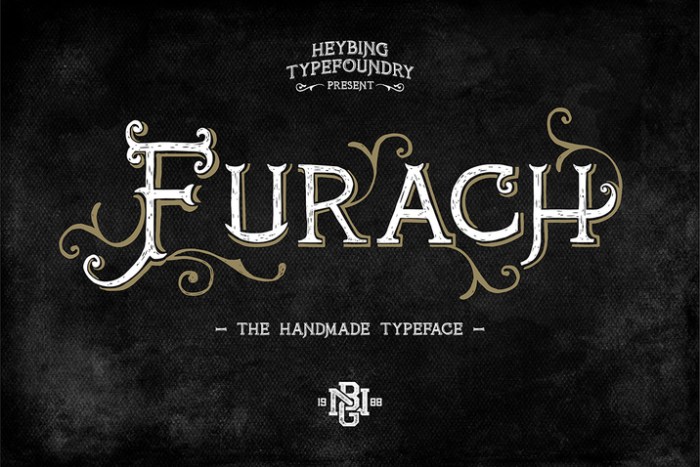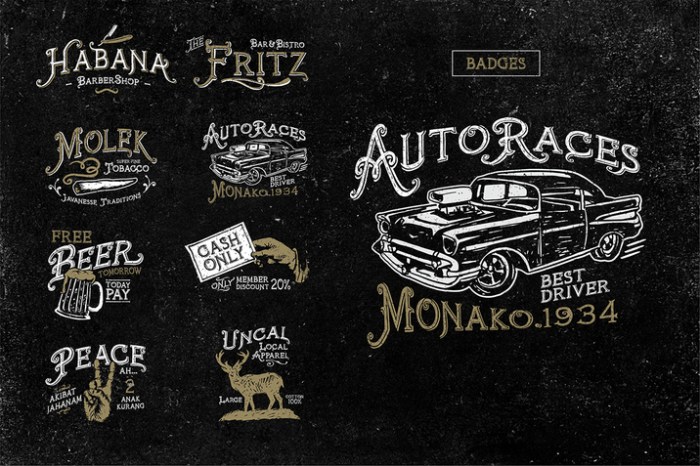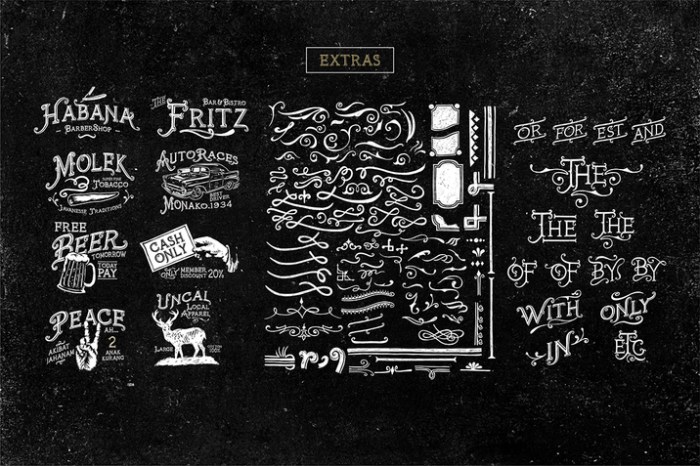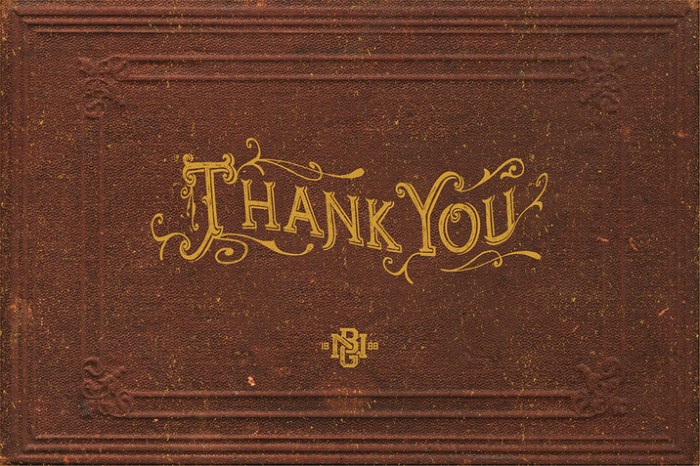
Name : Furach Typeface + Bonus (intro sale) Files : AI, OTF File Size : 7.59 MB Vector : Yes Web Font : Yes Rate of $15 - Limited Time Only** Furach is a typeface inspired from graphics and vintage posters, that is done entirely by hand, made with a simple style, classic look, elegant and natural. majority in uppercase with some combinations opentype. the furach typeface includes a full set of capital and lowercase letters as well as multy-lingual support currency figures, numerals, functuation and some extra gliphs. Product Content : • Furach Typeface (OTF Format) • Vector Bonus (AI and EPS format) Features : • Character Set A-Z • Numerals & amp; Punctuations (OpenType Standard) • Accents (Multilingual characters) • Stylistic Alternates Guides to access all alternates : http://adobe.ly/1m1fn4Y Furach typeface is suitable font for creating beautiful things and many creative work. Thank you for purchasing and happy designing :) Link for more information: https://creativemarket.com/heybinggo/245710-Furach-Typeface-Bonus-(intro-sale)